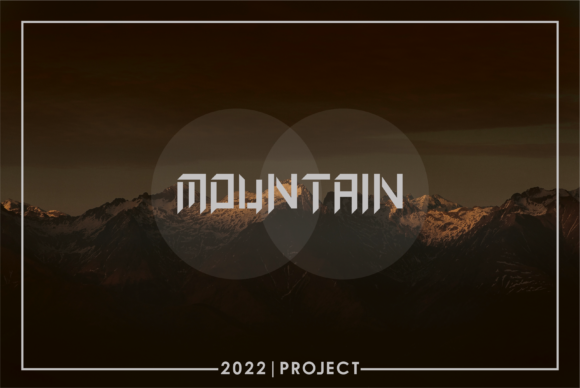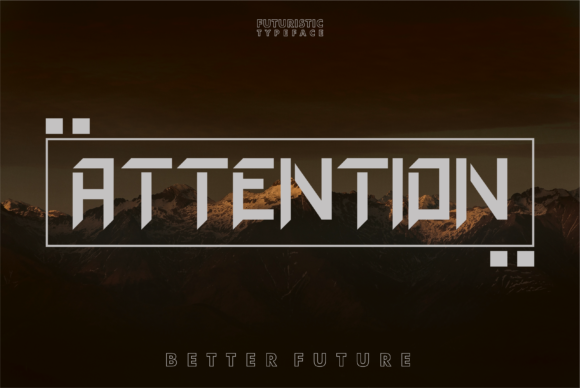
Introduction to Haseem Font
Do you ever find yourself scrolling through a design project, feeling like something is missing – that perfect font to elevate your creative vision to the next level? That’s exactly what happened to me last week when I stumbled upon the Haseem Font. Its bold, futuristic design instantly caught my attention, and I couldn’t wait to dive in and explore its possibilities.
As a designer, I know how valuable it is to have a reliable go-to font that can be used in a variety of creative projects. The Haseem Font is that perfect design resource – a high-quality, geometric font that’s free to download and can be easily customized to fit any project’s needs.
Whether you’re working on a design project with a transparent background or looking for a font to add a touch of modernity to your branding materials, the Haseem Font is sure to be a valuable addition to your design arsenal.
Key Features of Haseem Font
- High-quality, unique font design ideal for creative projects, offering a distinctive touch.
- Perfect for designers, artists, and writers seeking a high-quality, creative design resource for their projects.
Honest Review: Haseem Font
I recently had the chance to try out Haseem Font, a free download that promises to deliver high quality typography for my creative project. Overall, I’m pretty impressed with what I’ve seen.
- What works well: ✨ The Haseem Font has a really unique and stylish aesthetic that I think would be perfect for a modern design project. The font is also available in a transparent background option, which is super useful for creative projects that require a lot of layering.
- What works well: ✨ The font is also incredibly versatile and can be used for a wide range of design projects, from brochures to business cards.
However, I do have a few reservations about Haseem Font. ⚠️ One of the main limitations I’ve found is that the font can be a bit difficult to customize, especially when it comes to altering the spacing between letters.
Overall, I think Haseem Font is a great addition to any designer’s toolkit. While it may have a few limitations, its unique style and high quality typography make it a valuable resource for any creative project.
Haseem Font: A High-Quality Design Resource
Tips for Getting the Most Out of Haseem Font
To get the most out of Haseem Font, follow these tips:
- Use the font on a transparent background for a unique design effect
- Experiment with different font sizes and styles to create visual interest
- Combine the font with other design elements to create a cohesive design
Haseem Font is a versatile